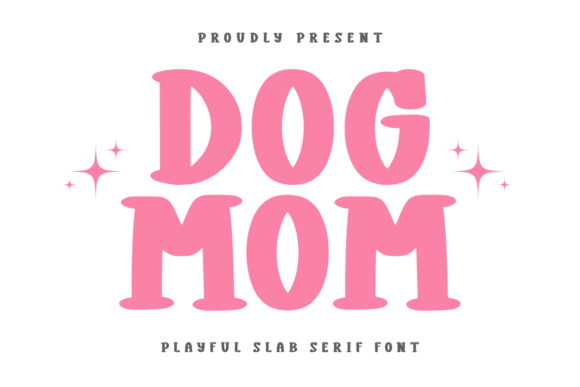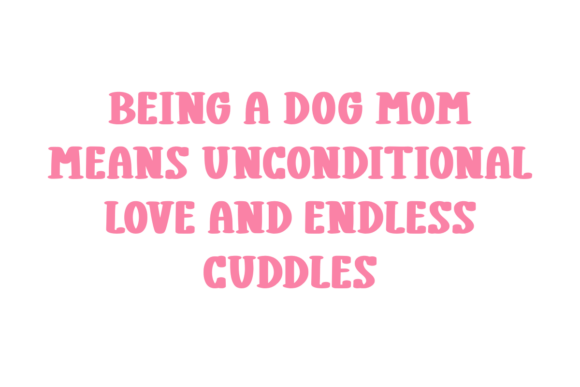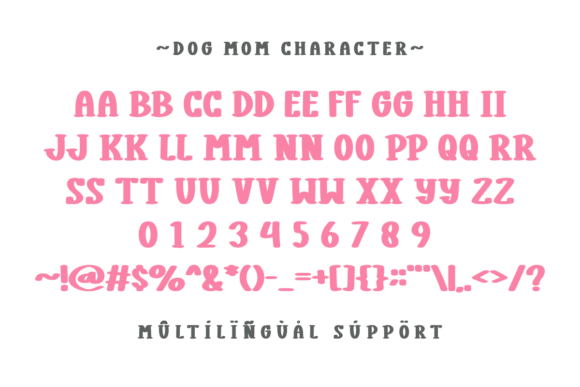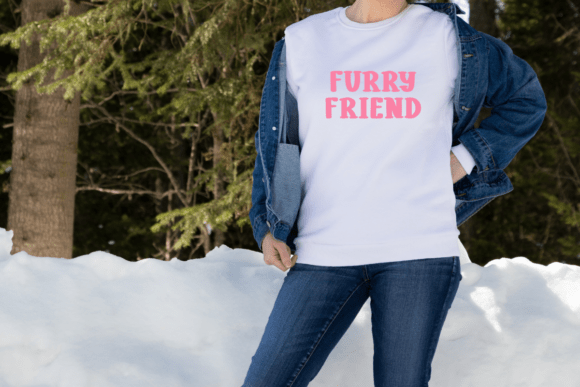
Dog Mom Font: A Cute Slab Serif for Cricut, Crafts & Playful Design
About the Dog Mom Font
Let us introduce you to Dog Mom Font, where timeless design meets modern craftsmanship. Dog Mom is a playful and bold slab serif font with a cute and bold personality. Designed especially for craft lovers, pet moms, and creative projects, this font brings a cheerful touch to any design.
Dog Mom Font excels in headlines, short slogans, and branding applications where a bold, friendly statement is desired. Its playful nature makes it ideal for packaging, posters, and social media graphics targeting a youthful, craft-oriented audience. However, its strong character and relatively large x-height make it less suitable for body text or UI elements requiring high readability in longer passages.
Pairing Dog Mom with a clean sans-serif like Open Sans for body copy provides excellent contrast and readability. For a more playful feel, consider pairing it with a handwritten script font for a layered, charming effect. Alternatively, a geometric sans-serif could create a modern and sophisticated balance.
The overall personality is cheerful and approachable, yet strong and confident. It projects a sense of fun and approachability while maintaining a clear, bold presence.
Dog Mom Font Usage Examples
Dog Mom Font Example